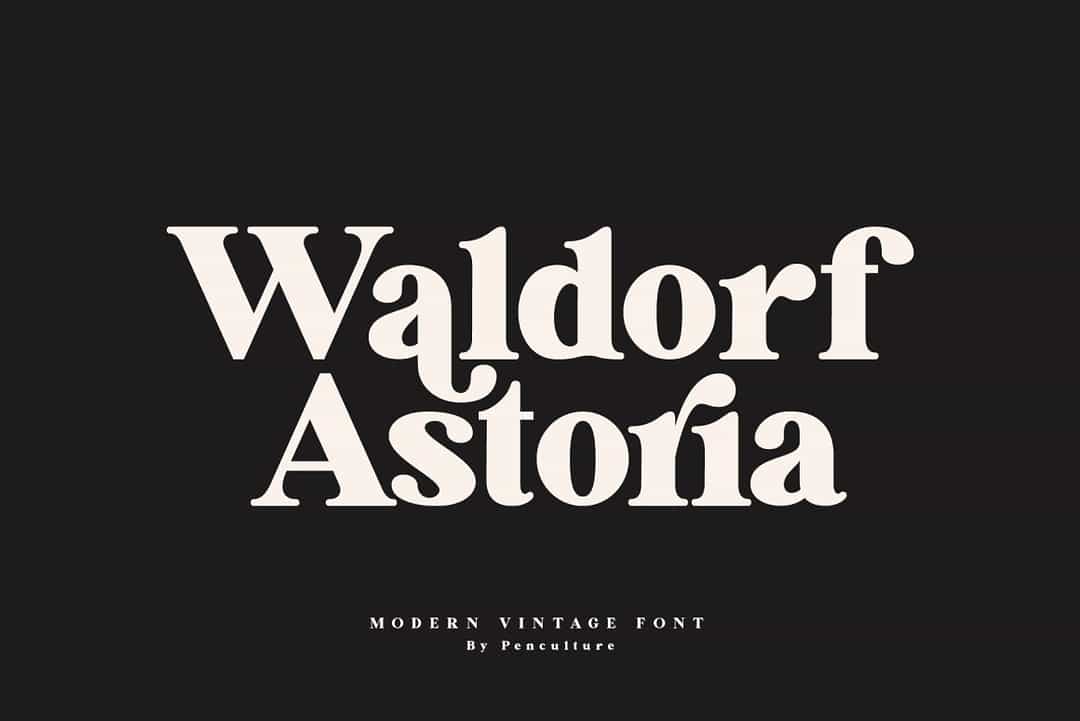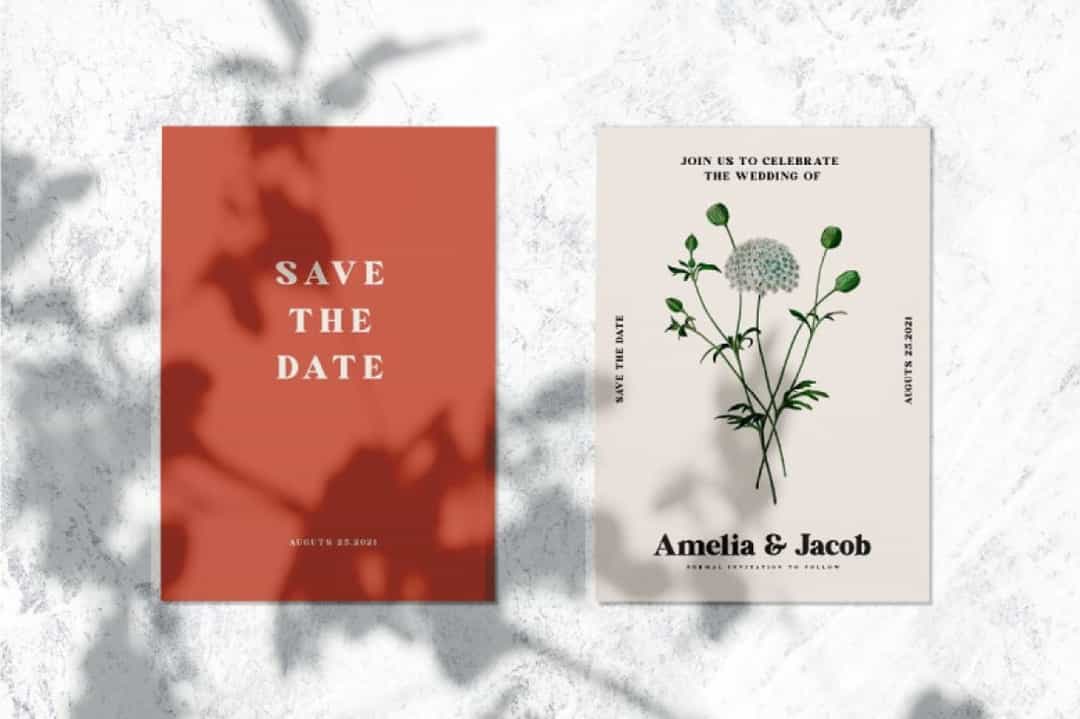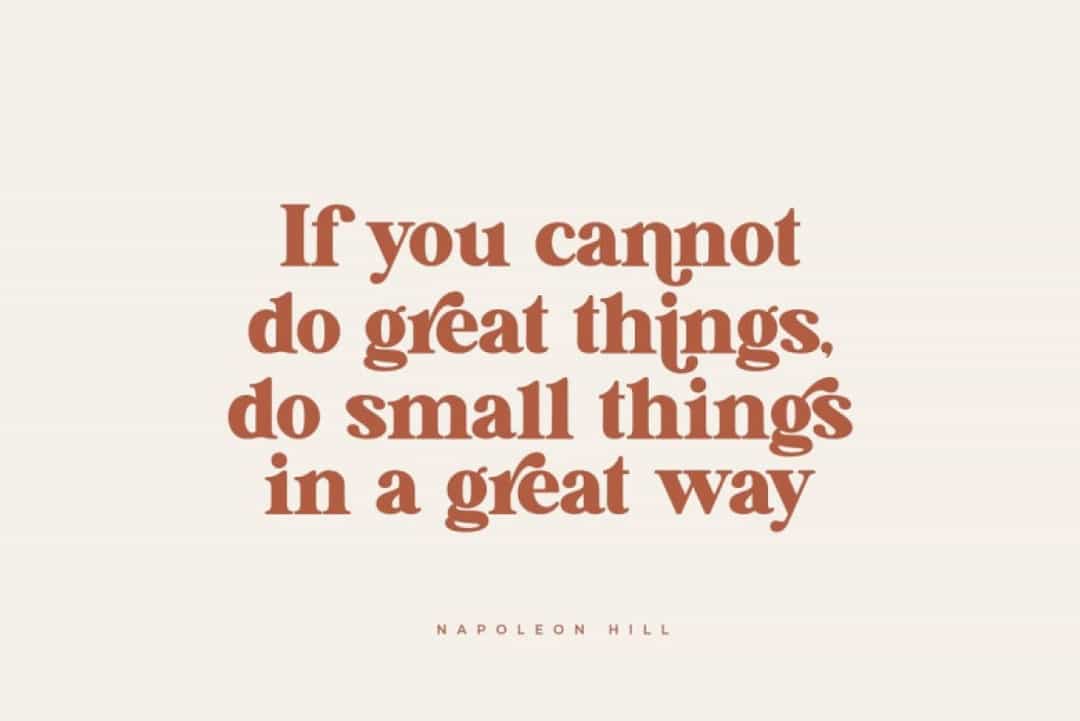
Discover Waldorf Astoria Font, part of the Serif Vintage collection—a versatile and unique font perfect for adding a personal touch to your projects. Download it for free and enjoy crafting designs with style, from invitations to social media posts. This font is available exclusively for personal use, giving you the freedom to create without limits. Unlock your creativity with Waldorf Astoria Font today!
Waldorf Astoria is a contemporary serif typeface with an old-fashioned vibe, perfect for all kinds of design applications including logos, branding packages, magazine images, wedding invitations, posters advertising projects ranging from modern to vintage themes.